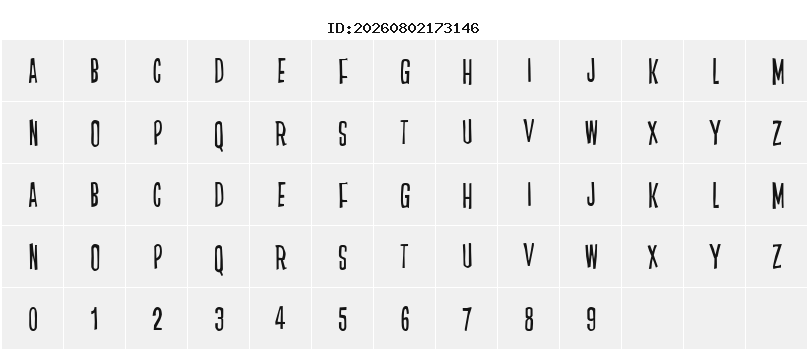
Nuderflaken Preview
• Font Name: Nuderflaken
About Nuderflaken.ttf
Nuderflaken.ttf is a modern, elegant sans-serif font designed for ultimate readability and visual harmony. Perfect for branding, headlines, web design, and print materials.